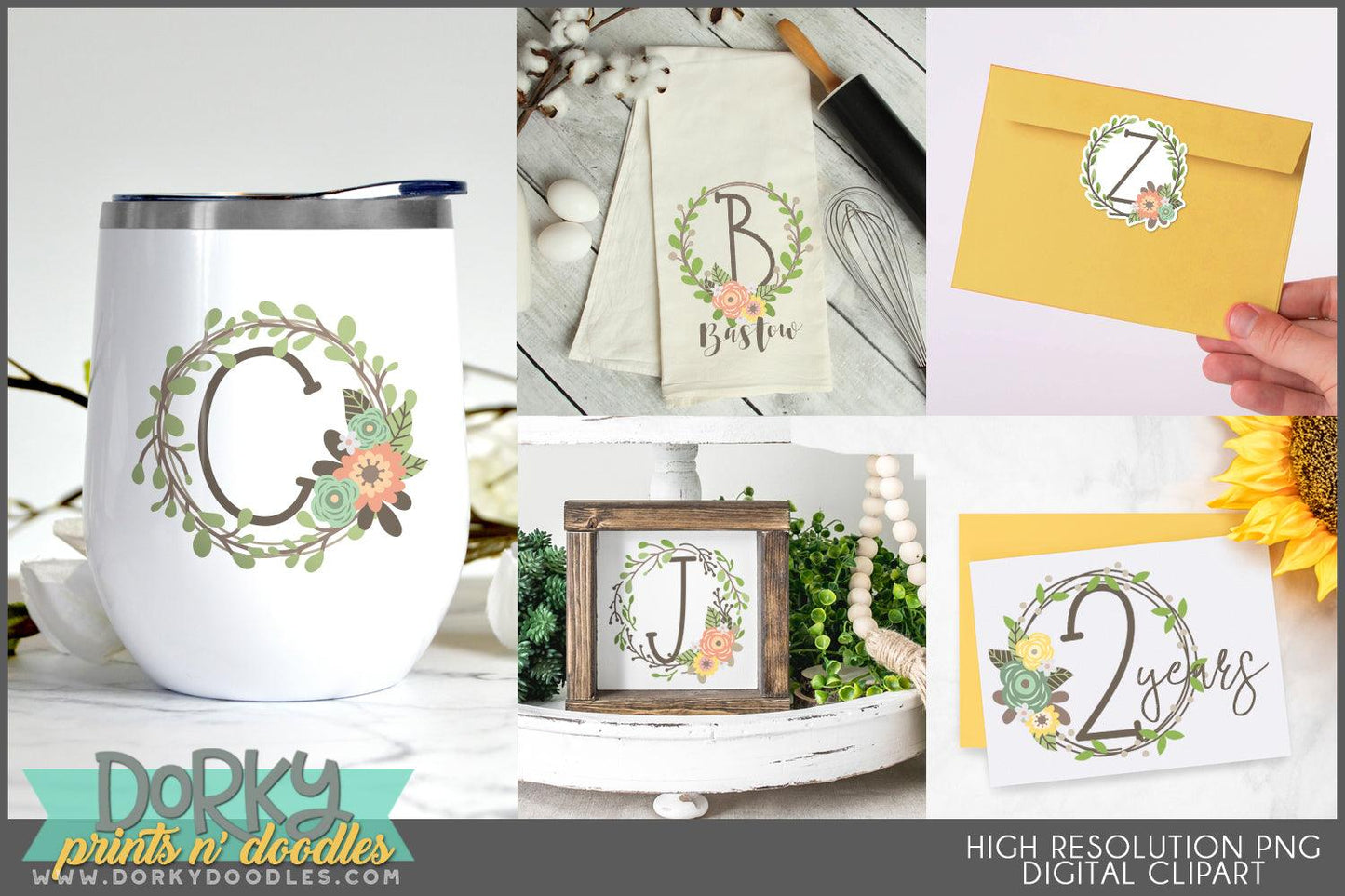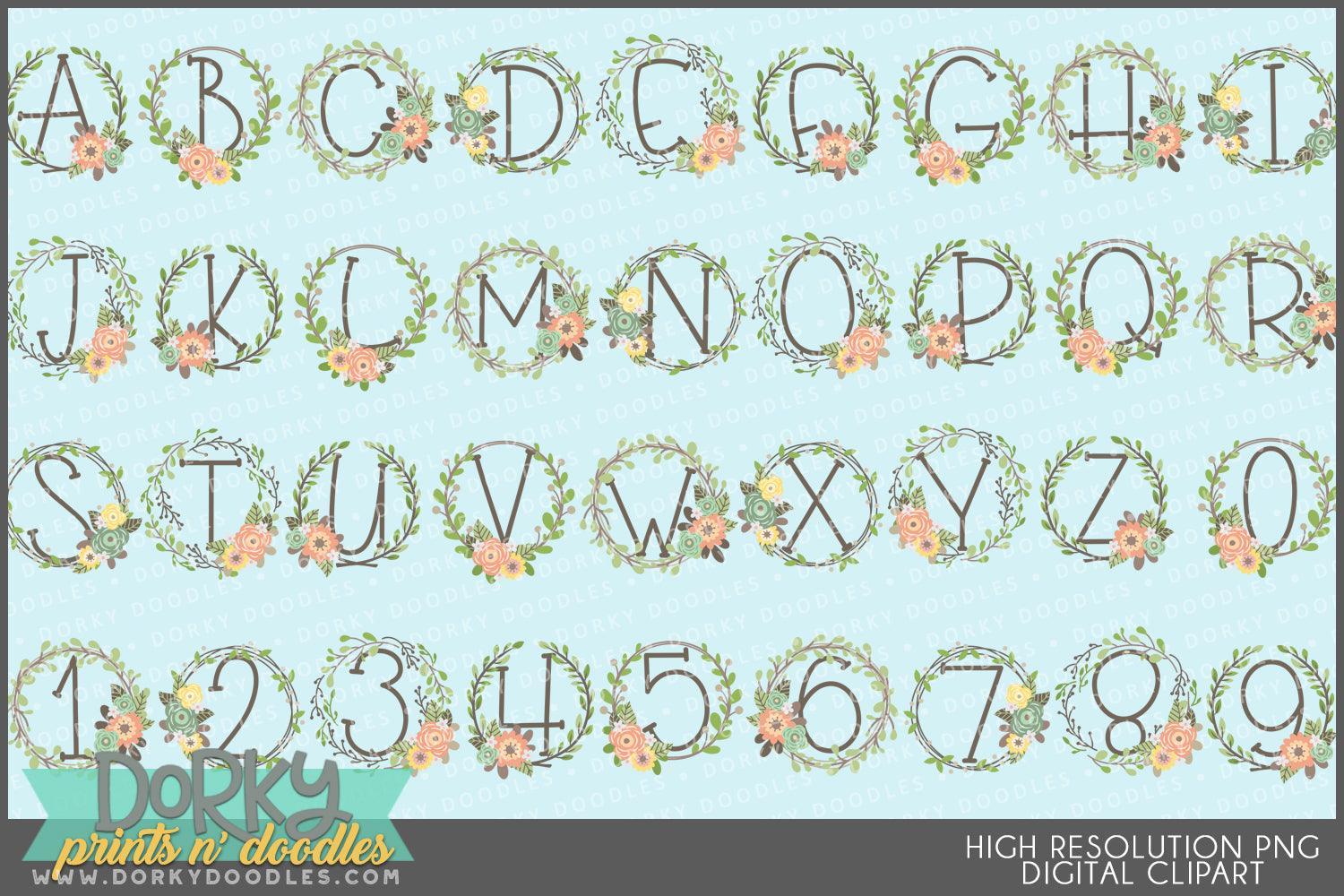
Farmhouse Wreath Alphabet Clipart
These pretty rustic wreath alphabet and number images look fabulous in scrapbooks, planners, party invitations, cookies, stickers, and decor! You will get 6 Digital Clip Art images in high resolution PNG format (they come as a ZIP file that you can download instantly once payment has cleared).
• letters A-Z featuring farmhouse style wreaths and flowers
• numbers 0-9 featuring modern rustic wreaths and flowers